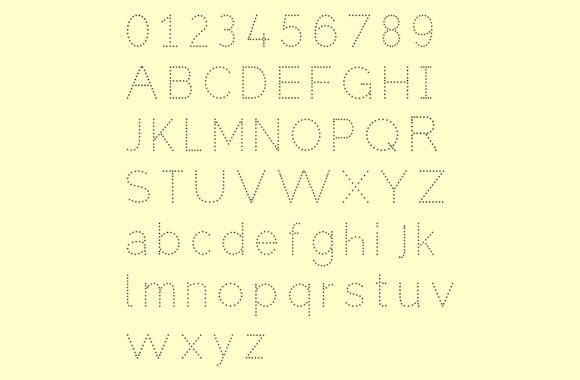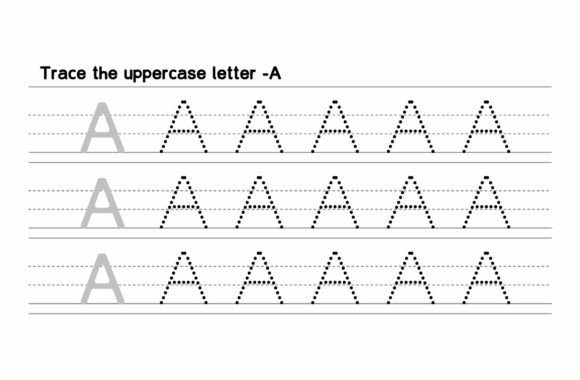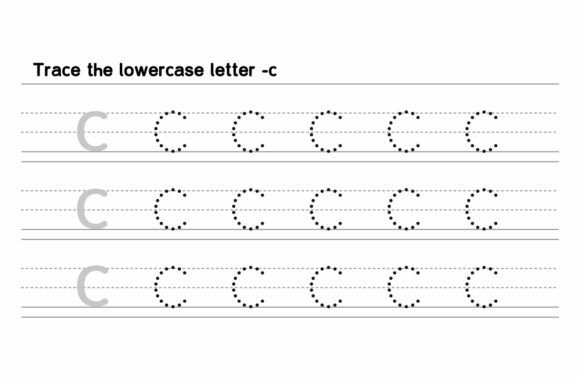
The Ultimate Guide to Doty Font: Simplifying Alphabet and Number Tracing
As a designer, I’ve had my fair share of projects that required a unique touch, especially when it came to handwriting and lettering practice. One project that stands out was when I was tasked with creating a custom worksheet for a client’s child who was learning to write. I scoured the internet for the perfect font, but none seemed quite right. That was until I stumbled upon the Doty font. In this article, I’ll share my experience with Doty, its features, and how to make the most of it.
What is Doty Font?
Doty is a dot font designed specifically for practicing alphabet and number tracing. Its unique dotted style makes it an excellent tool for kids and beginners looking to improve their handwriting and lettering skills. With Doty, you can simplify your lettering and handwriting practice, making it an ideal choice for designers, crafters, and creative hobbyists.
My Honest Review of Doty Font
I’ve had the pleasure of working with Doty font for a while now, and here’s what I think:
- ✨ The font is incredibly easy to read and write with, making it perfect for kids and beginners.
- ✅ The dotted style provides a clear guide for tracing and writing, helping users develop muscle memory.
- ⚠️ One minor quirk I’ve noticed is that the font can be a bit tricky to use with certain software, but this can be easily overcome with a little practice.
- 🤔 Some users may find the font a bit limited in terms of styling options, but this is a minor trade-off for its effectiveness.
The Backstory of Doty Font
Doty font was designed with the intention of creating a simple, yet effective tool for handwriting and lettering practice. The designer aimed to create a font that would provide a clear guide for tracing and writing, making it perfect for kids and beginners. While the designer’s inspiration is not well-documented, it’s clear that Doty font has become a valuable resource for designers, crafters, and creative hobbyists.
| Font Name | Doty Font |
| What is Doty font best used for? | Doty font is best used for handwriting and lettering practice, especially for kids and beginners. |